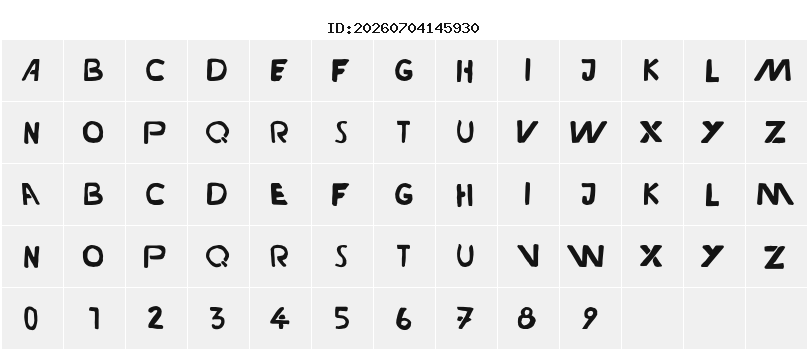
• Font Name: Durden
• Font Style: ExtraBold
• Full Font Name: Durden-ExtraBold
• Designer: Martin Le Hénand
• Manufacturer: Martin Le Hénand
About Durden.otf
Durden.otf is a modern, elegant sans-serif font designed for ultimate readability and visual harmony. Perfect for branding, headlines, web design, and print materials.